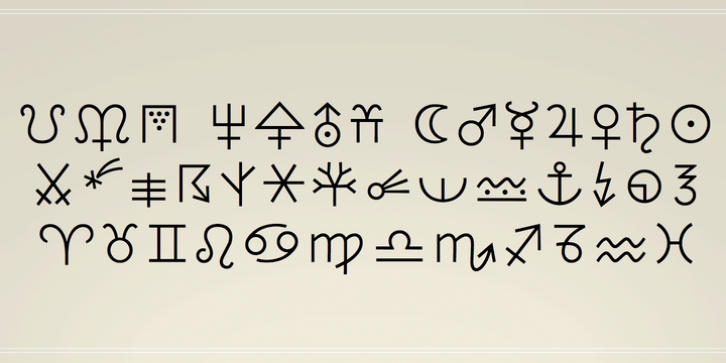
Andreas Stötzner
SIAS
This font contains a selection of typographical symbols, covering mainly Astrology, Biology (Botany), Meteorology and Mathematics. Its glyphs are in a sensibly adjusted light monoline style.